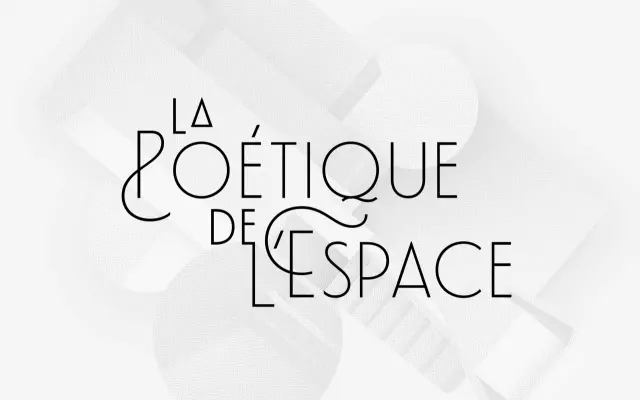
Waverly CF
An art deco-influenced display typeface with varied letter widths, swash alternates and broad Latin and Cyrillic language coverage across seven weights.
Drawing on art deco letterform conventions while updating their construction for contemporary use, it uses deliberate variation in letter width to build rhythm across words, making it well-suited to logotypes and headline artwork. Seven weights from Thin to Heavy are supported, with multiple stylistic sets offering swashes and alternate forms for a range of expressive options. Coverage extends to Belarusian, Bulgarian, Ukrainian, Vietnamese and a wide range of other Latin and Cyrillic-based languages.
The foundry describes it as combining art deco tone and flow with modernised construction and variable letter widths, placing it firmly in decorative display territory with period stylistic reference.